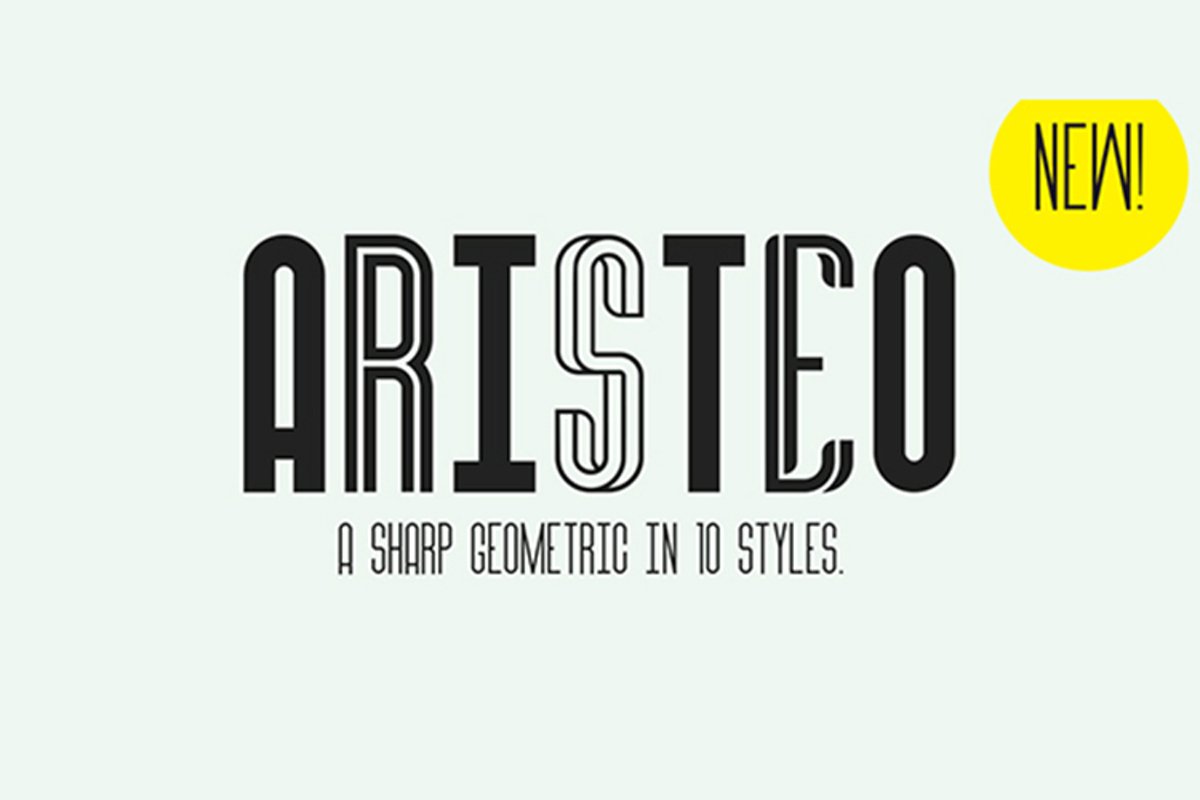
Aristeo
Aristeo is a font family that is specifically designed for sports-related designs, although it can also be used for other designs.
Aristeo is special because it is made with a balanced thickness and full of caution so that it emits a dynamic aura when viewed.